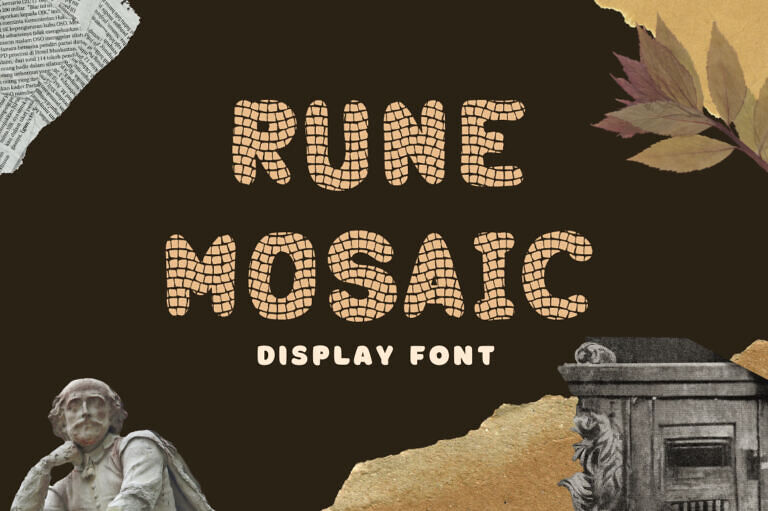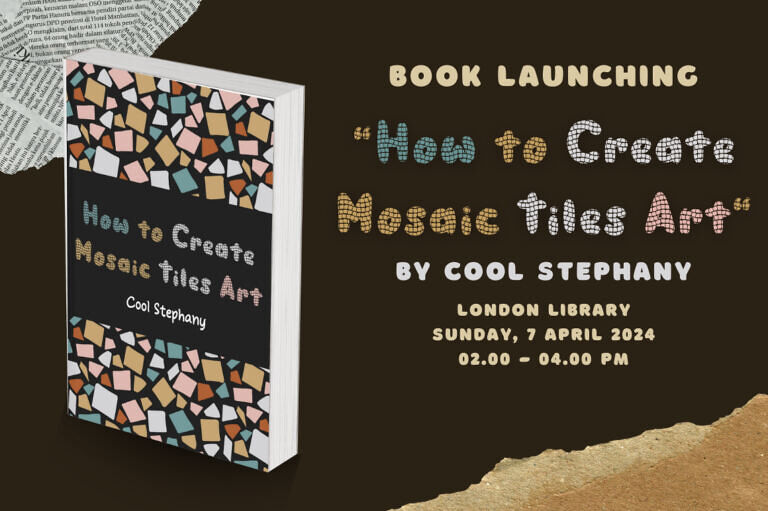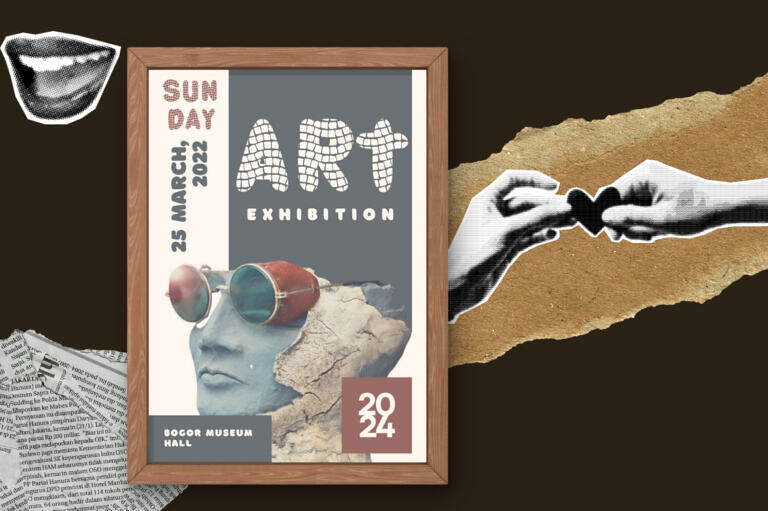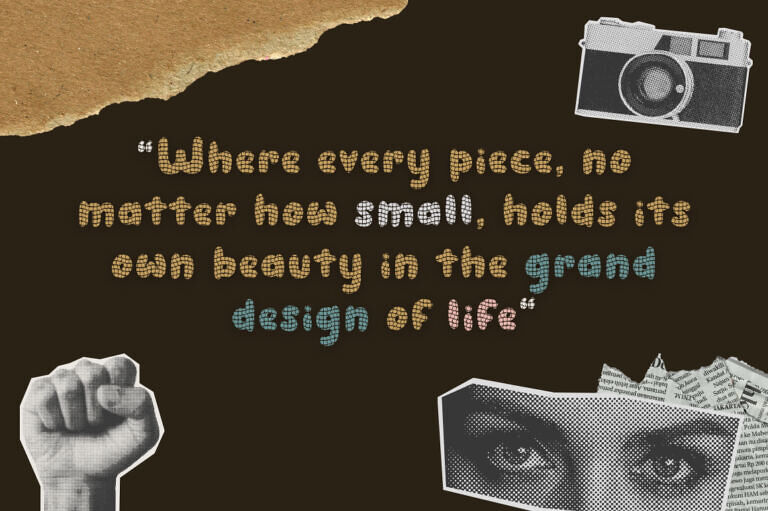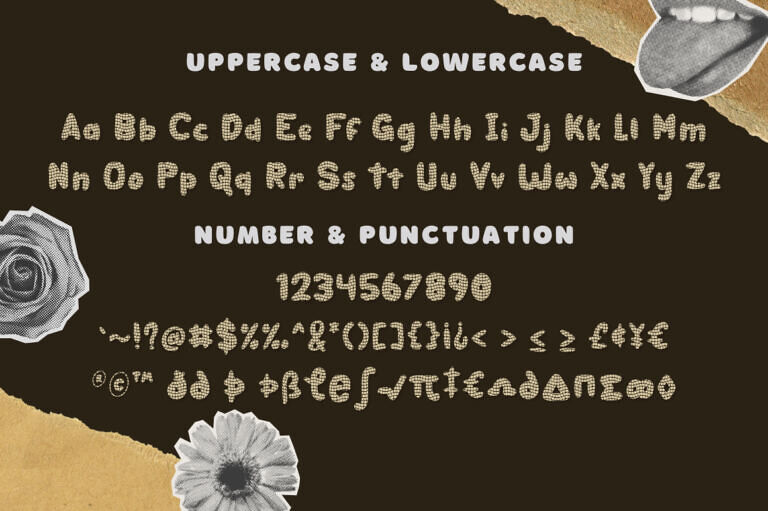
Introducing Rune Mosaic Font, a captivating display font reminiscent of mosaic artistry.
Perfect for flyers and any crafting-related projects, this unique font adds a touch of artistic flair to your designs.